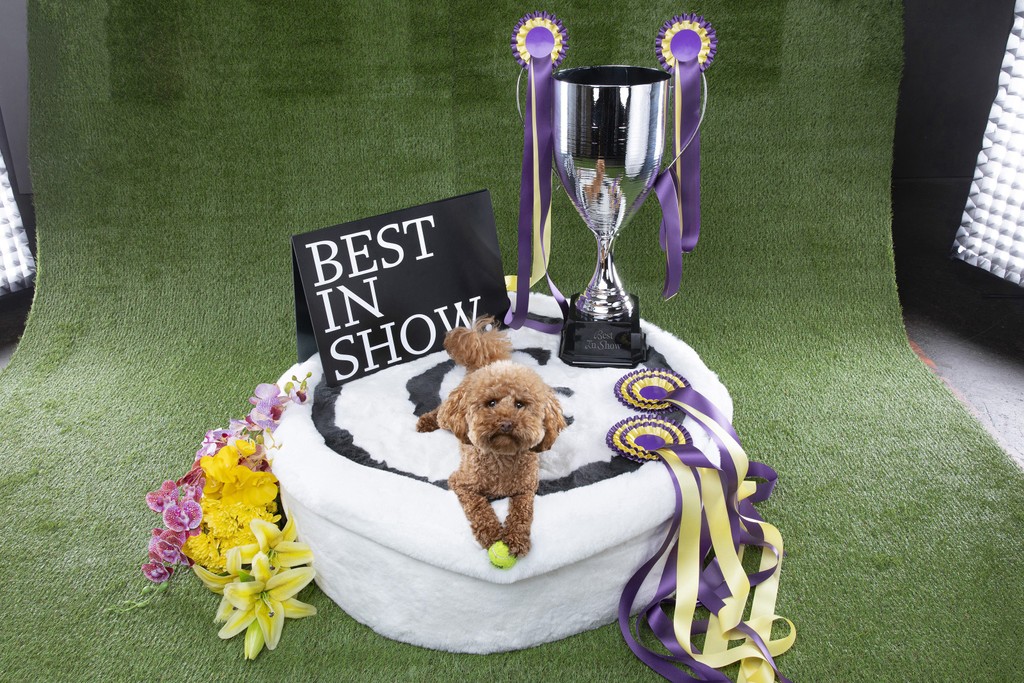
Gramercy Greek
About Gramercy Ελληνικά Greek
Gramercy is an elegant, contemporary serif that balances slightly painterly and whimsical forms with functionality and sturdiness. With 48 styles in total, its three subfamilies — Standard, Fine, and Display — each come with uppercase swashes. All in all, Gramercy is a font that invites extreme editorial flexibility. A true winner.
A recurring theme is Gramercy’s overhanging, misproportioned details. Where another typeface might have ball terminals, Gramercy has flared strokes. That’s what makes it feel painterly. Hearts beat faster when Gramercy’s swashes appear, a series of uppercase flourishes that cover all weights and subfamilies.
The font was initially heavily informed by F.H. Ernst Schneidler’s Amalthea (1956), a typeface that served as the Italic companion to his eponymous Schneidler-Mediäval (1938). Gramercy, Gramercy Fine, and Gramercy Display all cover eight weights with corresponding Italics. The variable font files allow you to elegantly sashay from high to low contrast. Using its second variable axis, you can wax and wane from Thin to Super.
Design: Dinamo (Robert Janes, Fabian Harb, Johannes Breyer)
Greek Design: Panagiotis Haratzopoulos
Spacing and Kerning: Igino Marini
Production: Dinamo (Hugo Jourdan)